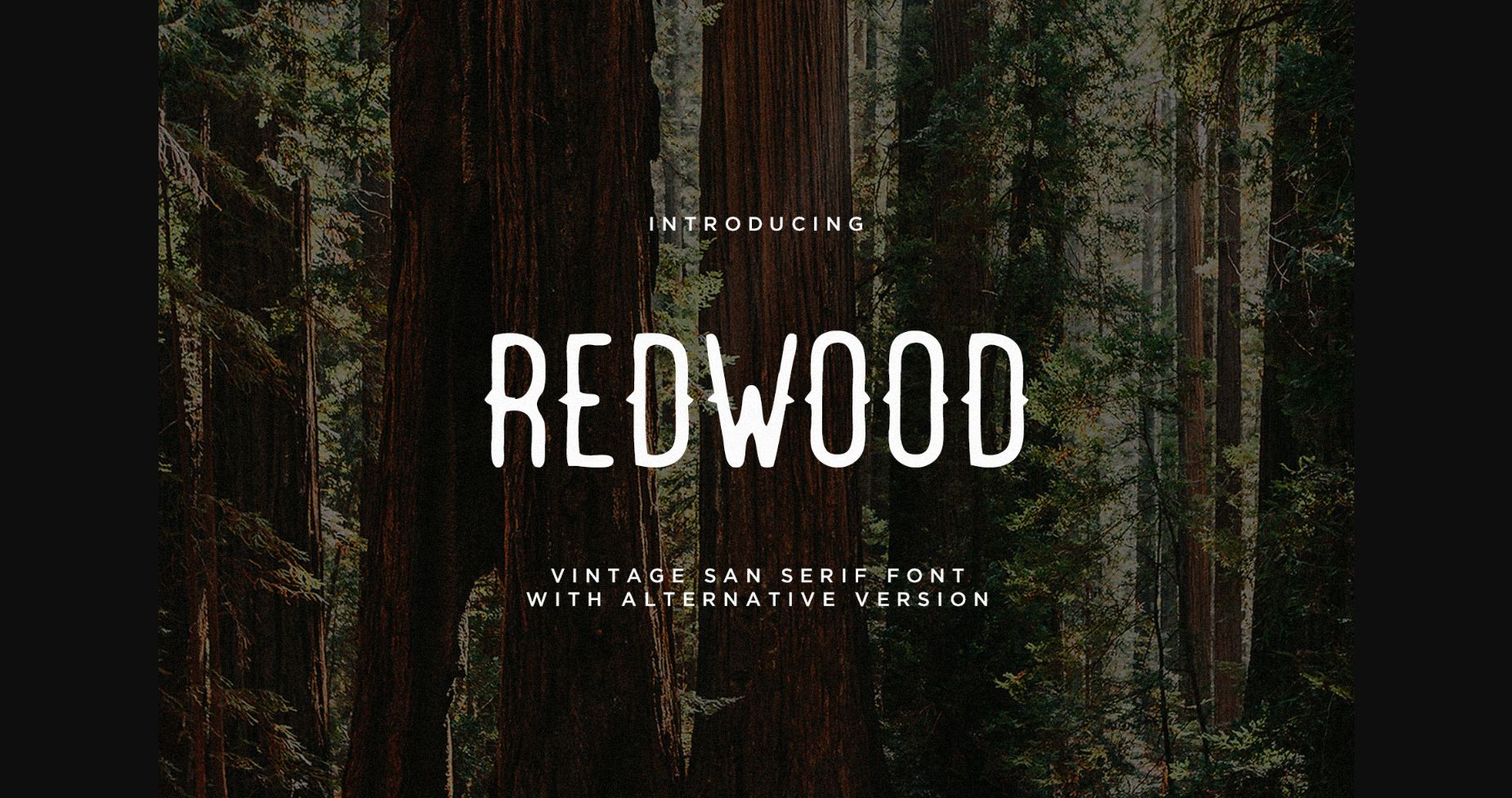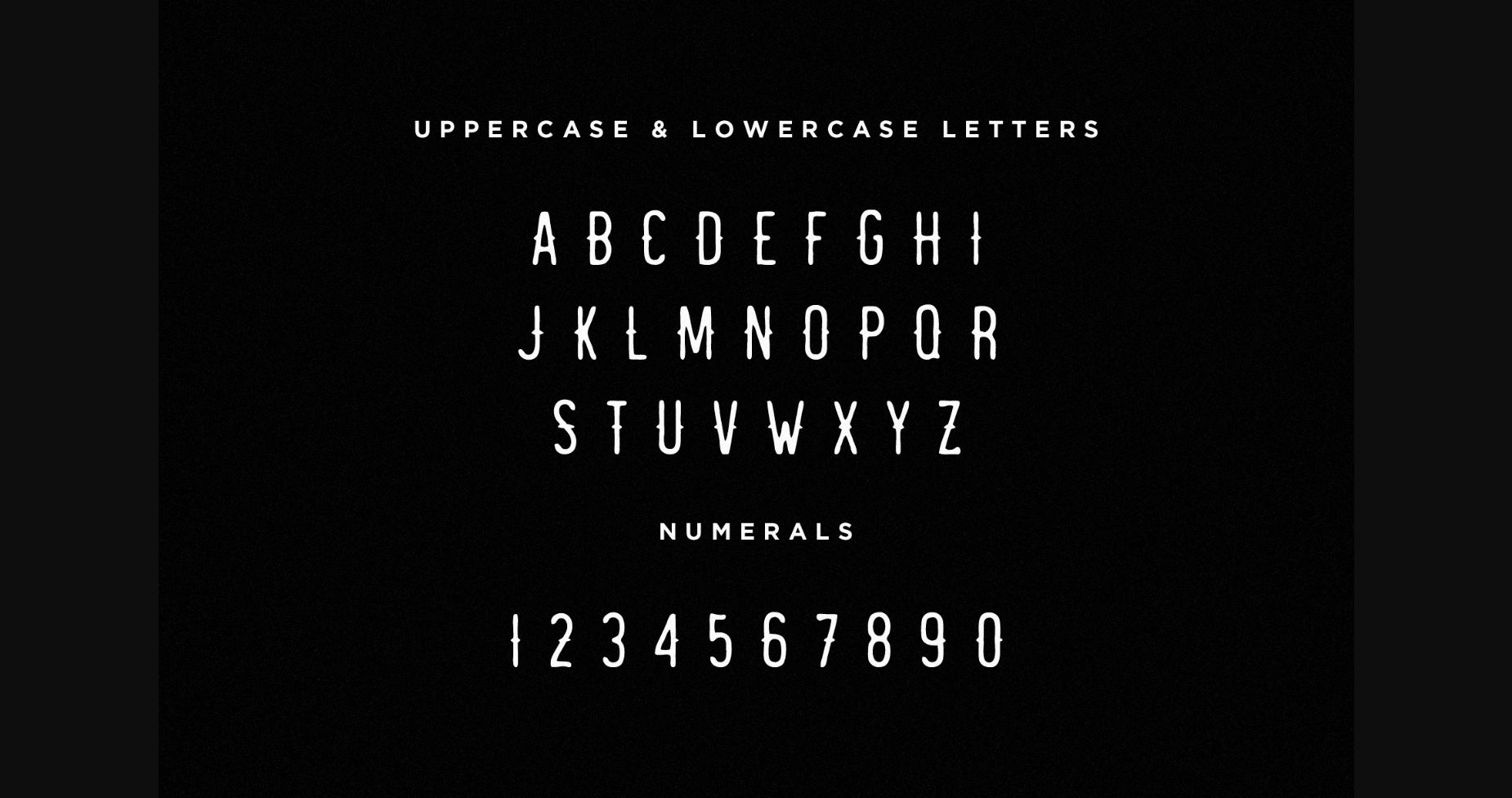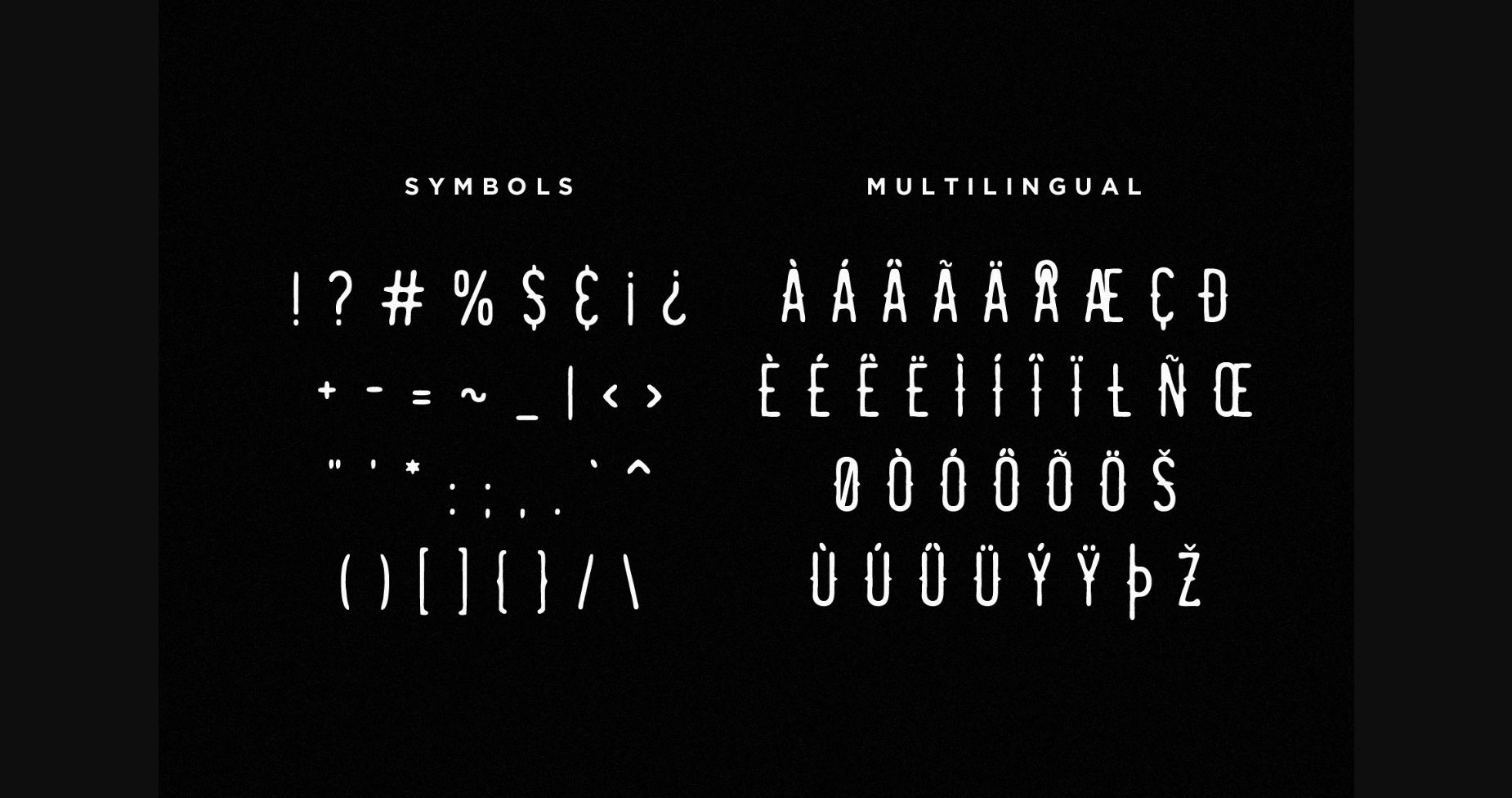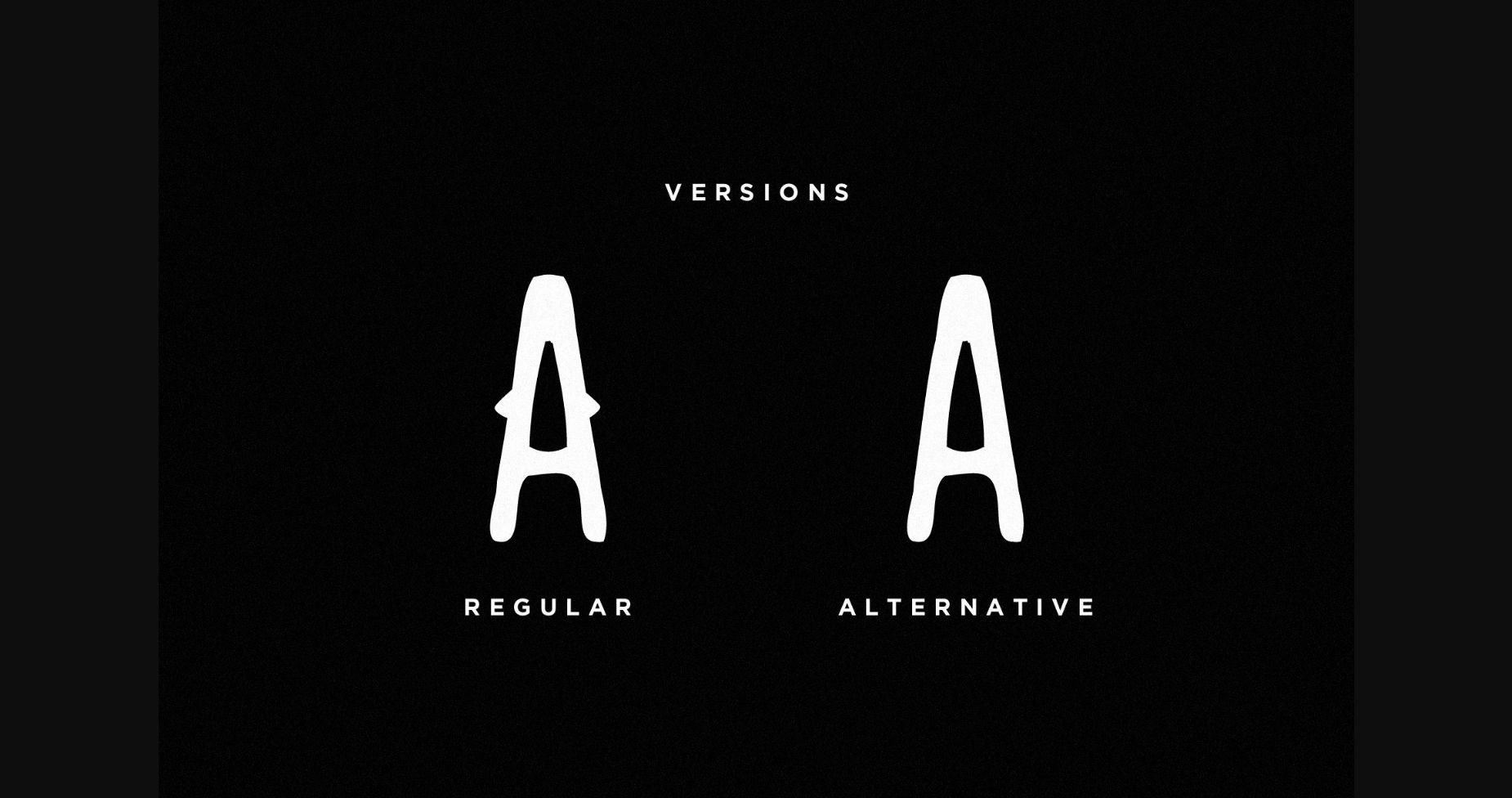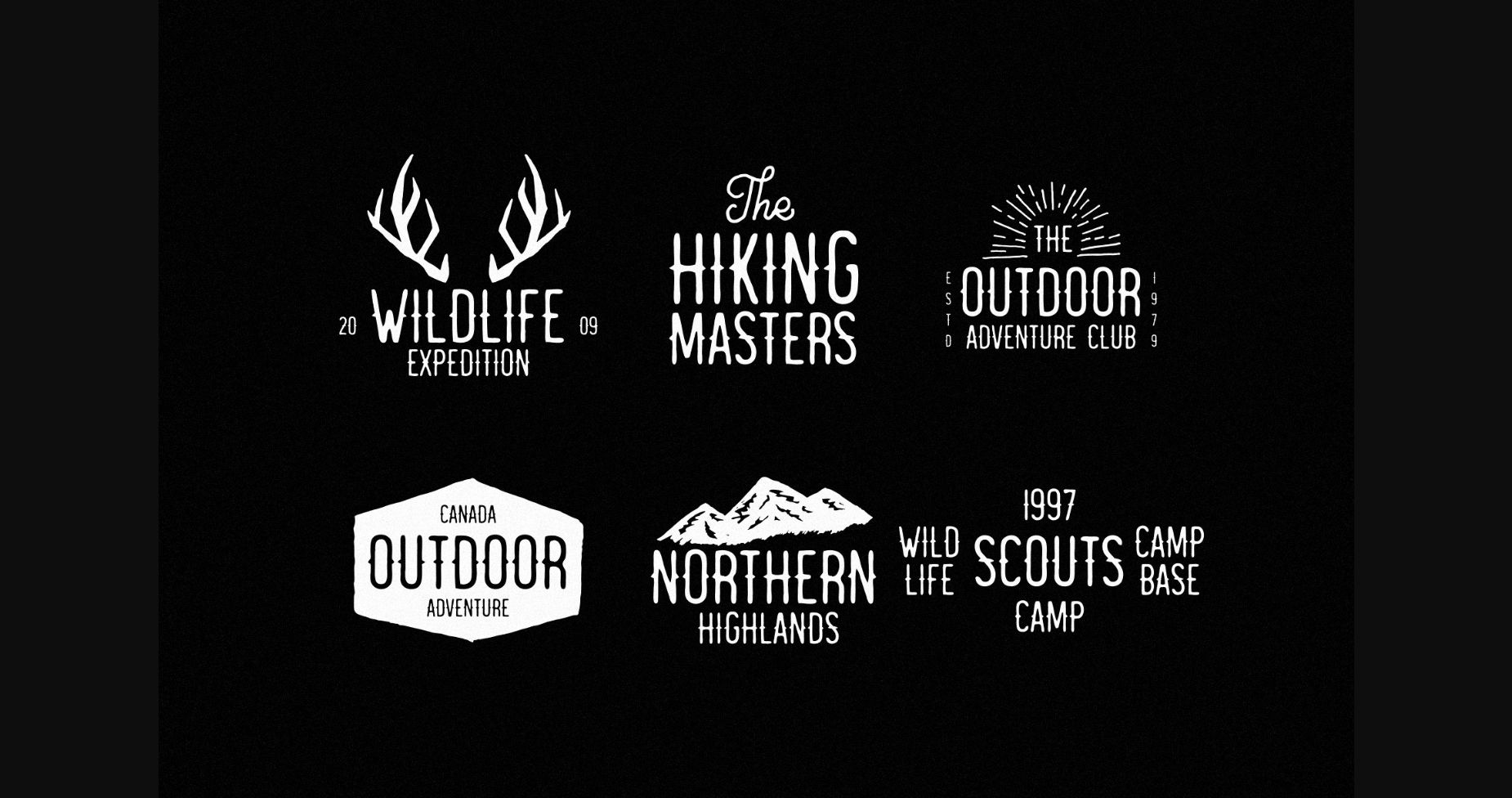
HomeSans Serif FontsRedwood Font Sans Serif Fonts Redwood Font FacebookXPinterestWhatsApp 1 of 7 ... Redwood Font Poster 2... Redwood Font Poster 3... Redwood Font Poster 4... Redwood Font Poster 5... Redwood Font Poster 6... Redwood Font Poster 7... About Redwood Font Redwood is a vintage sans serif hand-drawn font with a rough look. Redwood is perfect for branding, logos, t-shirts, hoodies, etc. DOWNLOAD NOW People also explored Loverin Font Magic Fibre Extended Font Willice Toscana Font Bunny Font Christmas Spirit Font Splendid Booker Font Massilan Font 310 0 TagsRedwoodRedwood Font Previous articleBibury FontNext articleRedwood Alternative Font LEAVE A REPLY Cancel reply Comment: Please enter your comment! Name:* Please enter your name here Email:* You have entered an incorrect email address! Please enter your email address here Website: Save my name, email, and website in this browser for the next time I comment. Personal Use Free Orchid Personal Use Free Read more about this font Bamboomoe Personal Use Free Read more about this font Messages Personal Use Free Read more about this font Awesome Snowflakes Font Personal Use Free Read more about this font BLOG Best Fonts for T-Shirt Design – Top 2025 Picks In 2025, t-shirt design has become more than just fashion—it's a form of self-expression. Whether you're... Top 10 Handwritten Fonts That Elevate Your Designs Free Fonts Risk: Why Free Fonts Can Be Dangerous for Designers Elegant Wedding Invitation Fonts – Handwritten & Script Fonts